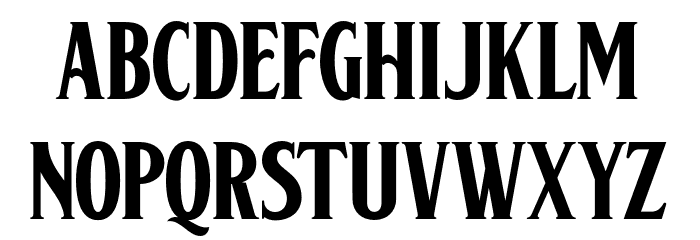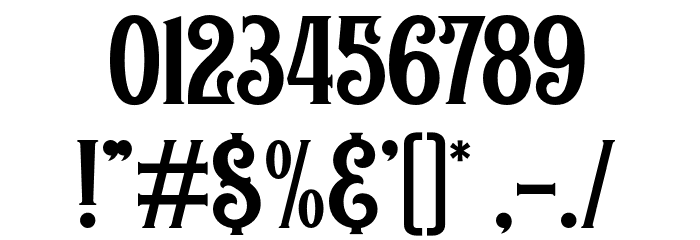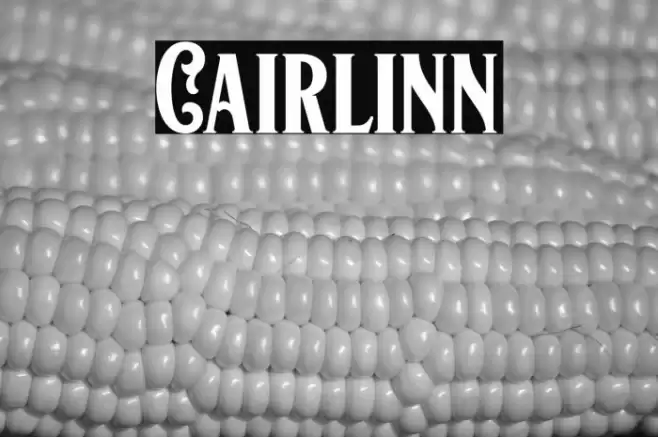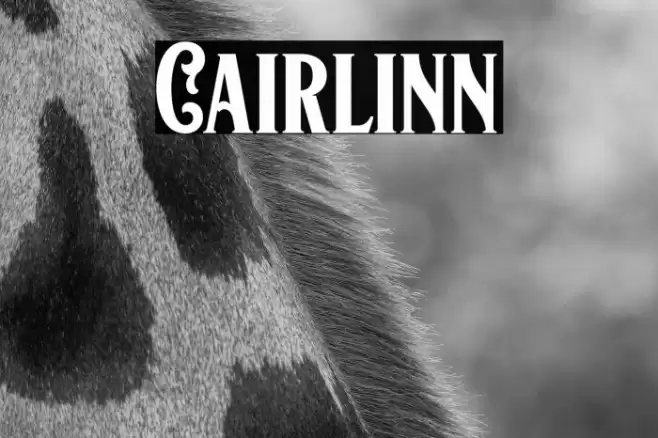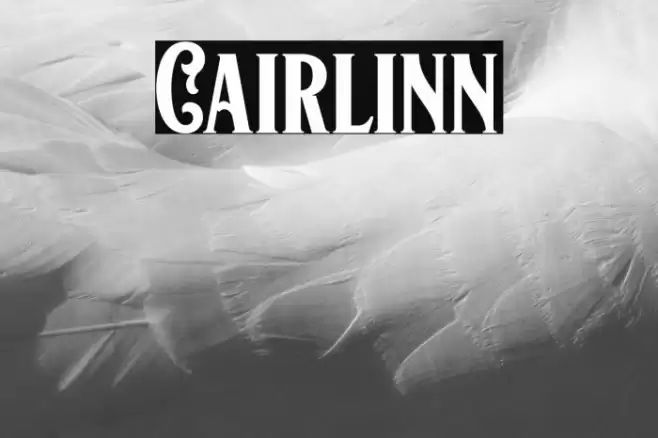
Cairlinn Font
This font features a bold and decorative style with unique, artistic flourishes on certain characters, giving it a distinct and eye-catching appearance. The uppercase letters are particularly ornate, with intricate curves and embellishments that add a touch of elegance and sophistication. The numbers and special characters maintain this decorative theme, ensuring consistency across all glyphs. The overall design is reminiscent of vintage or retro styles, making it suitable for projects that require a classic yet artistic touch. The font's boldness and decorative elements make it ideal for headlines or titles where a strong visual impact is desired.
A bold, decorative font with ornate flourishes and a vintage style.
- Proposed Projects: Ideal for vintage-themed posters, book covers, branding, and event invitations.
- Overall Style: Vintage